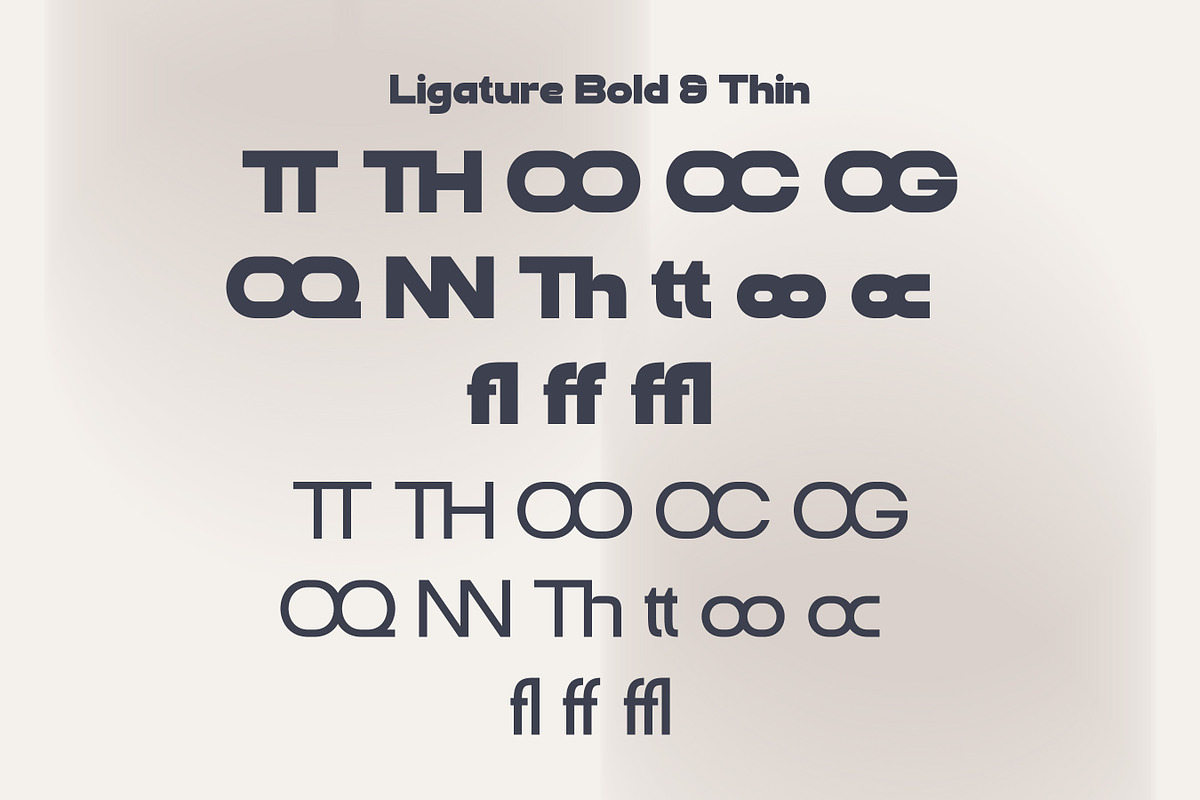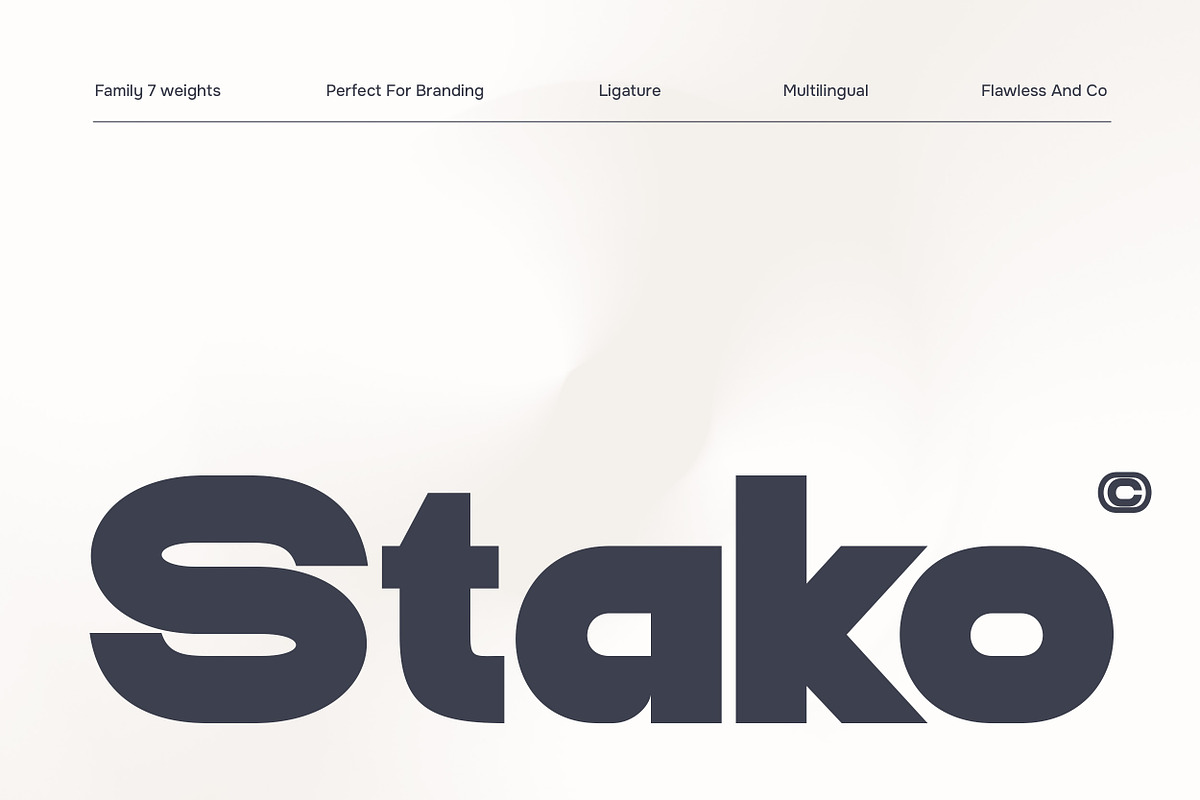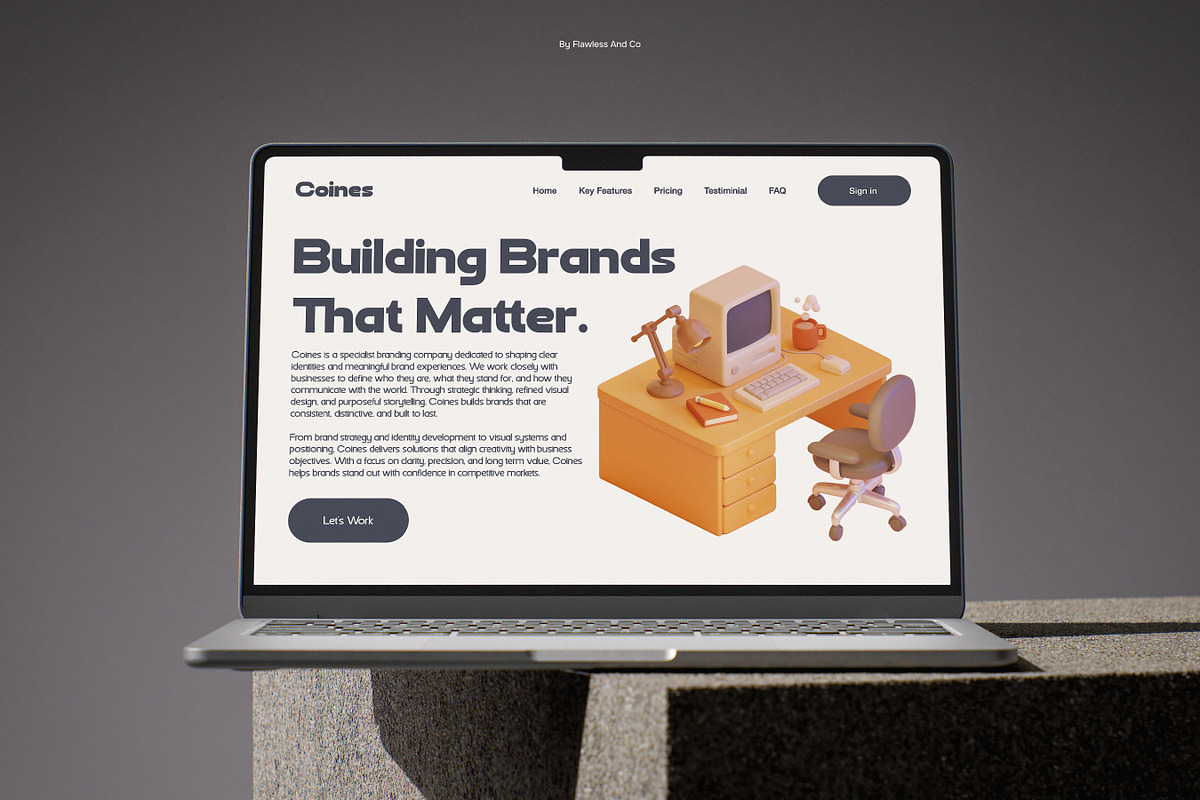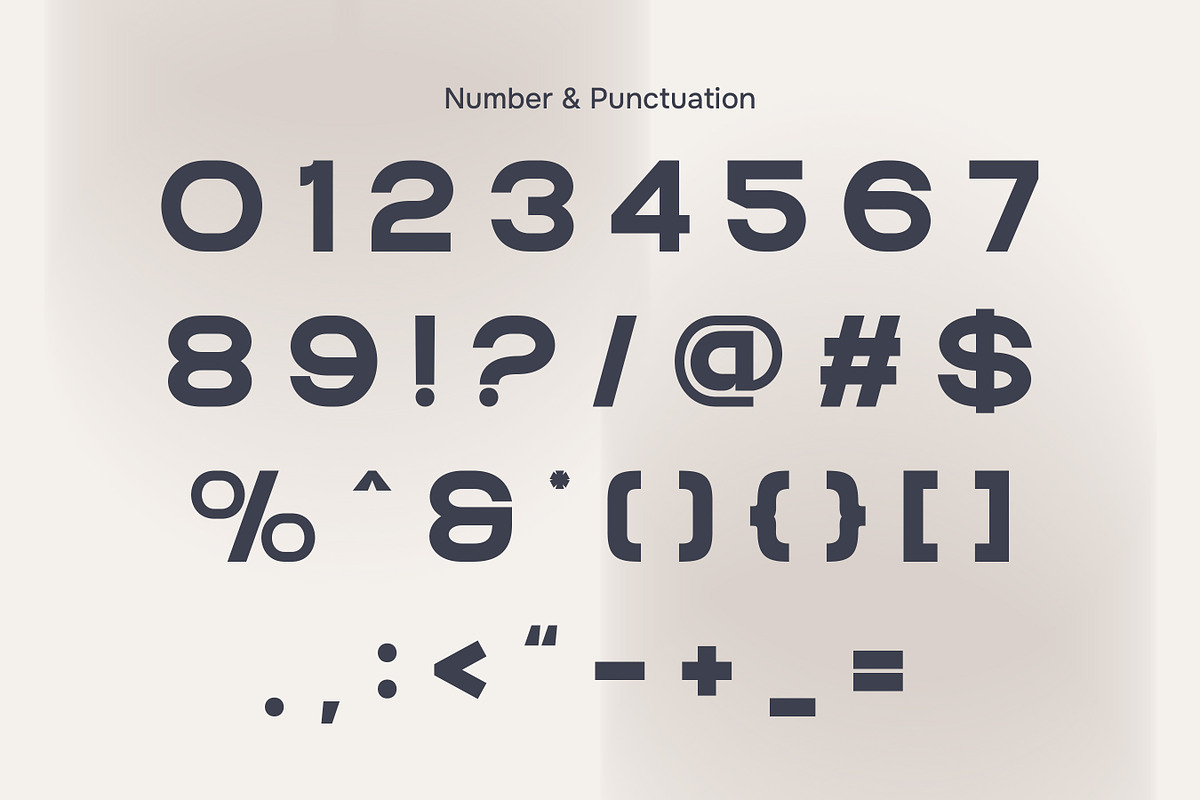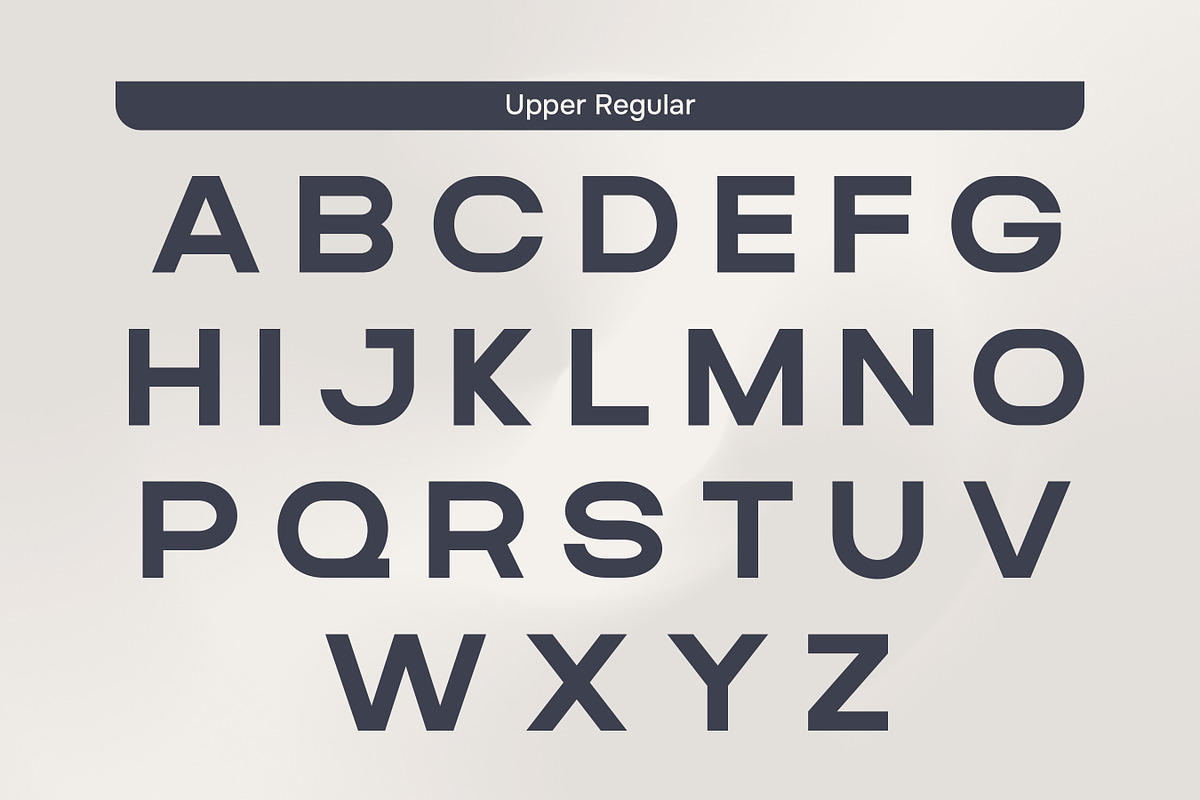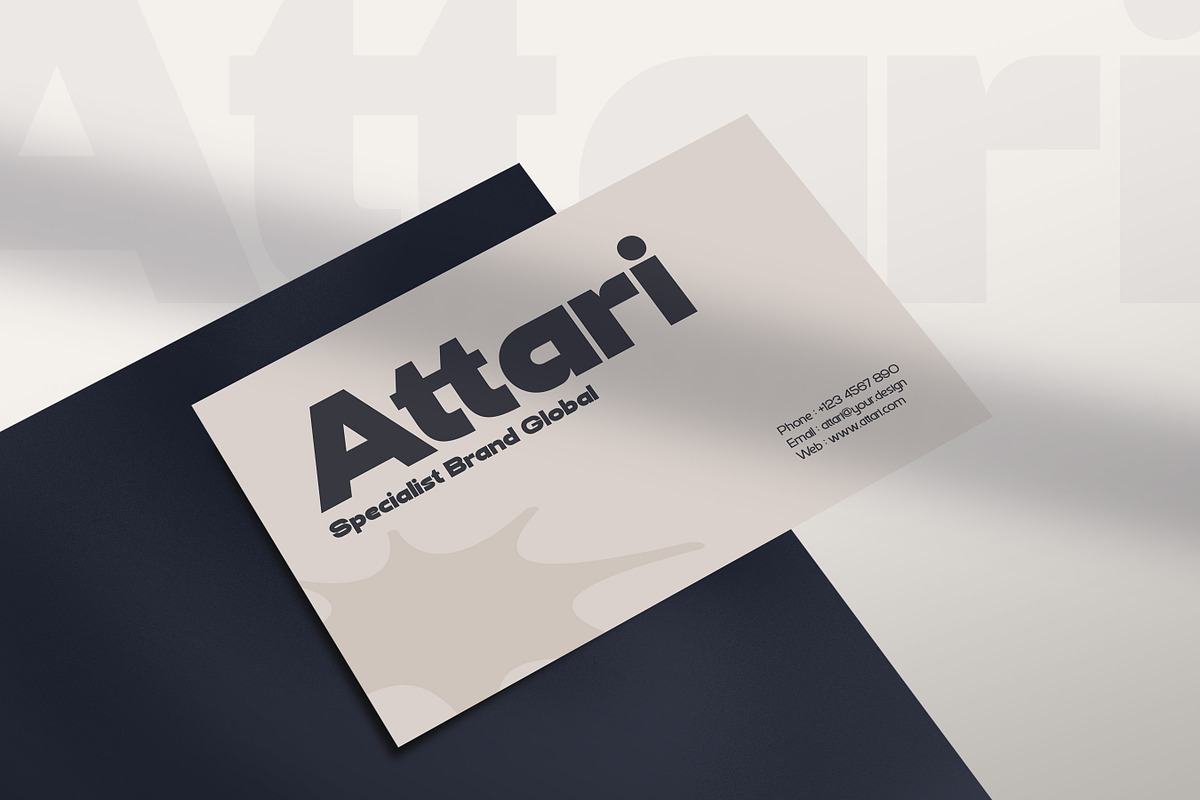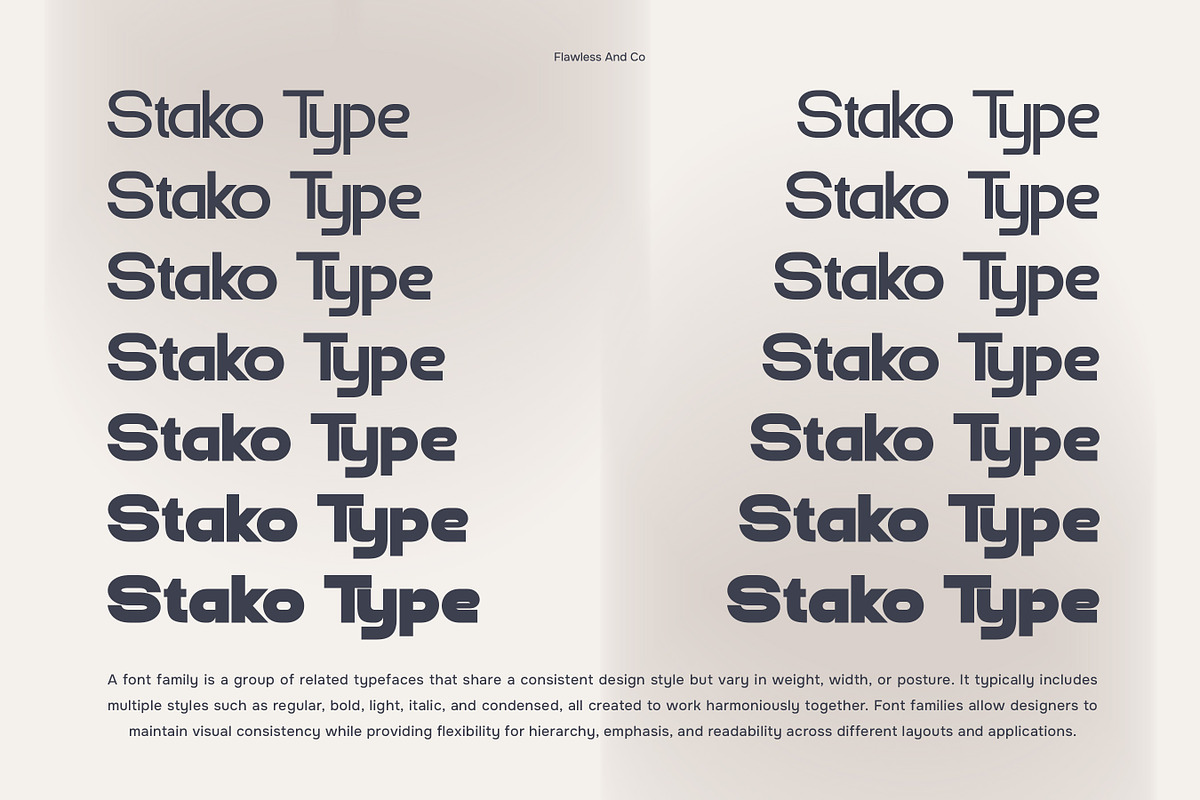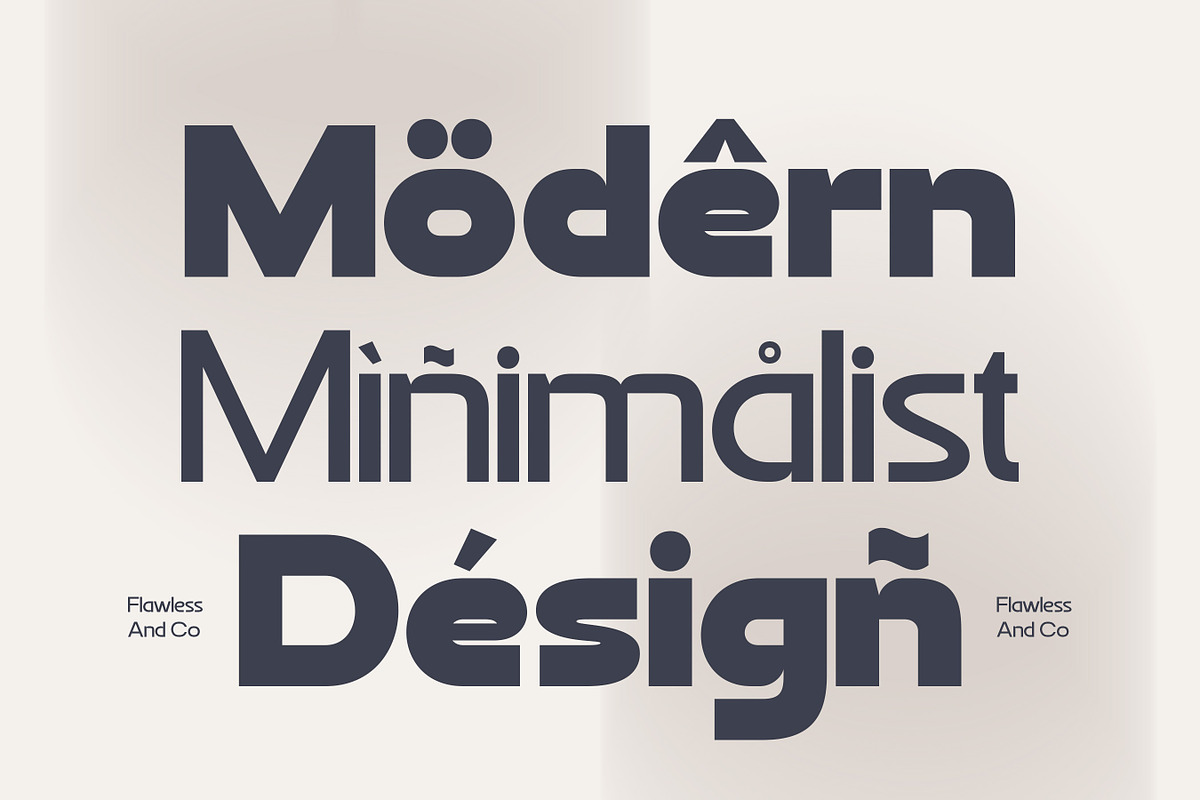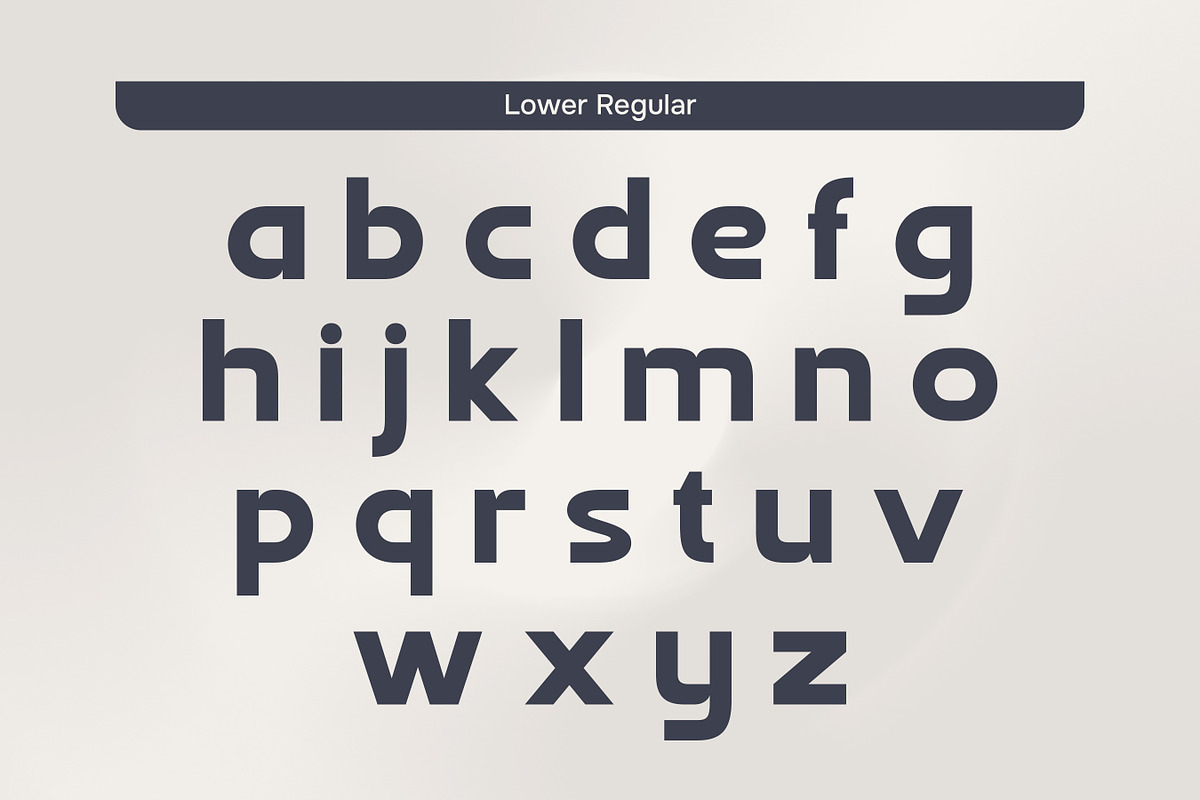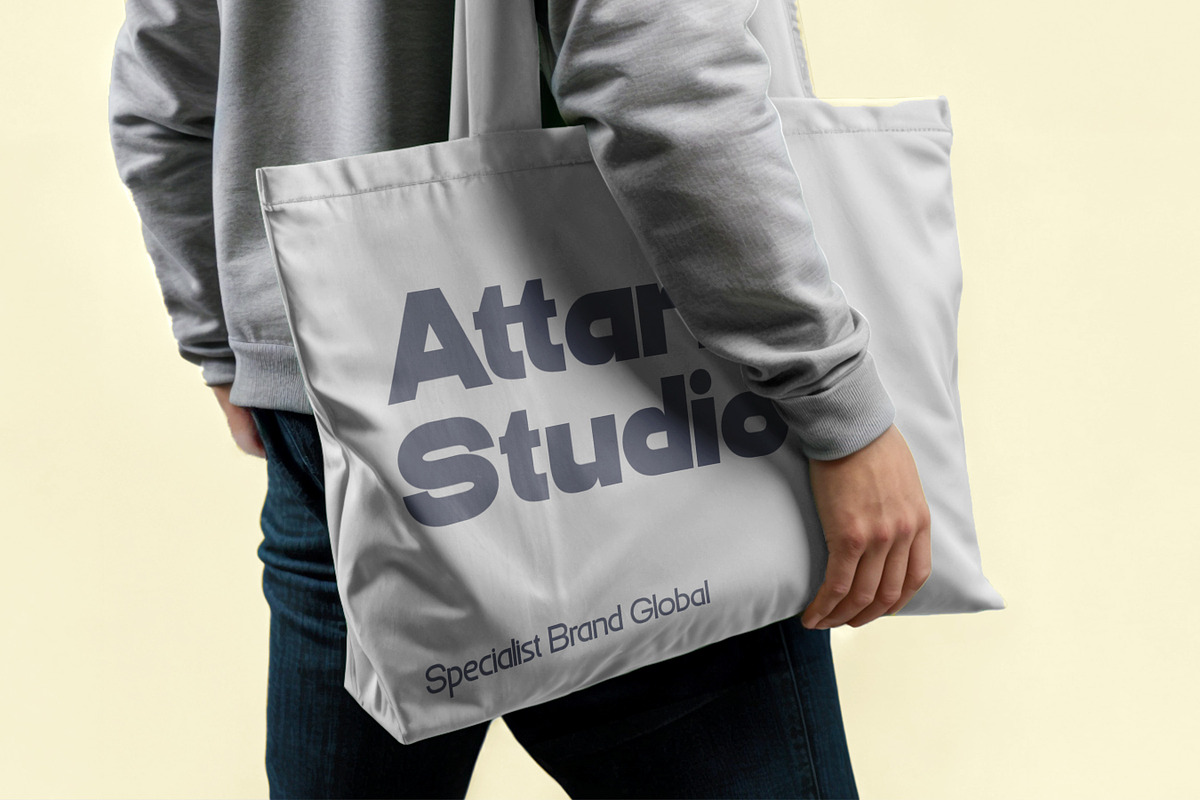
Stako - Modern Sans Serif Family
Stako - Modern Sans Serif Family Font
With its balanced proportions and minimalist structure, Stako creates a sleek and contemporary look that works seamlessly across a wide range of design needs. Its multiple weights allow for flexible use, from bold headlines to highly readable body text. Whether you’re building a brand identity or designing digital interfaces, Stako provides a polished and reliable typographic solution.
Who Should Use Stako?
Stako is perfect for designers, creatives, and brands who value clean aesthetics and modern functionality. It’s especially suitable for those working on corporate identities, tech brands, and minimalist design systems that require clarity and consistency.
Suitable For:
- Modern and corporate branding
- Logo and identity design
- Website and app UI design
- Editorial layouts and publications
- Packaging and product design
- Business presentations and marketing materials
- Social media graphics and digital branding
- Minimalist typography projects